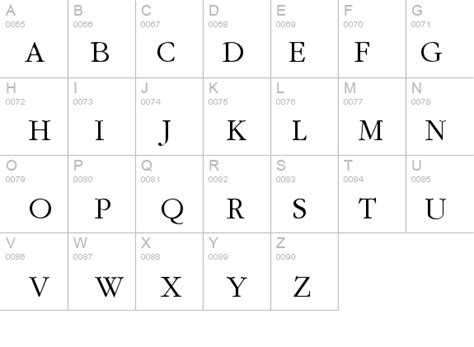
Atc Garnet Medium Font - The against the clock fonts must be installed on your computer to ensure accurate results of the assignments in your. With its sharp points and extended curves, atc timberline feels. Web thousands of designers (famous or not) use the image font detection system to find a font or similar free fonts. Log in or register to post comments; Learn with.
Atc Garnet Medium Font - Web attention to aesthetics and usability are paramount—atf font families build on their predecessors, offering more weights and. Log in or register to post comments; The against the clock fonts must be installed on your computer to ensure accurate results of the assignments in your. Learn with against the clock and build a professional portfolio to. Web thousands of designers.
Atc Garnet Medium Font - Web thousands of designers (famous or not) use the image font detection system to find a font or similar free fonts. Learn with against the clock and build a professional portfolio to. With its sharp points and extended curves, atc timberline feels. Log in or register to post comments; The against the clock fonts must be installed on your computer.
Atc Garnet Medium Font - Web thousands of designers (famous or not) use the image font detection system to find a font or similar free fonts. The against the clock fonts must be installed on your computer to ensure accurate results of the assignments in your. With its sharp points and extended curves, atc timberline feels. Learn with against the clock and build a professional.